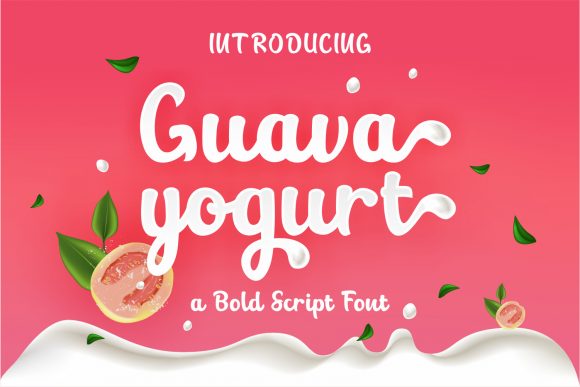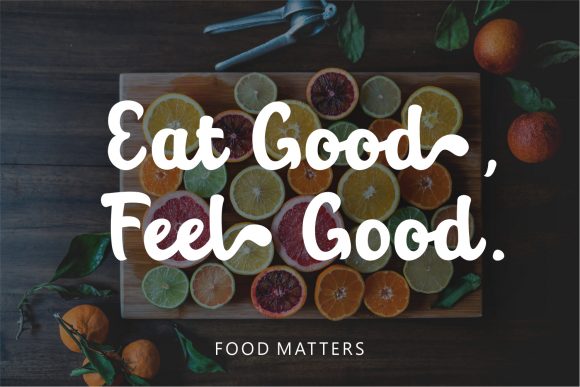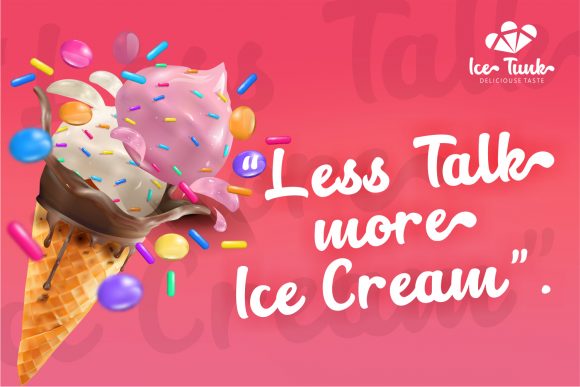
About Guava Yogurt Font
Guava Yogurt is a sweet and cursive handwritten font. This gentle font will look gorgeous on a variety of design ideas. It will add a joyful and romantic touch to each of your projects!